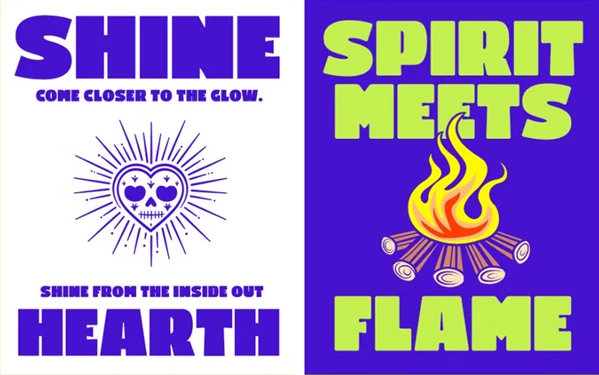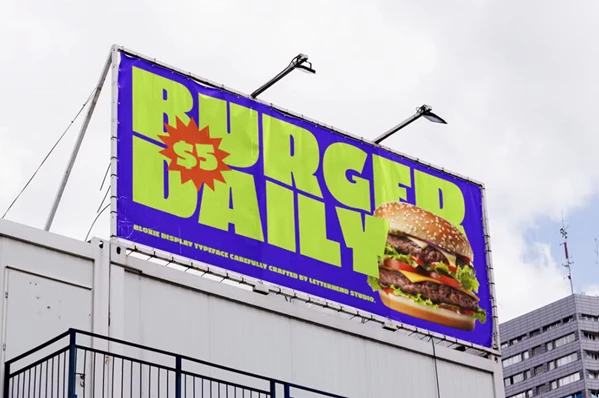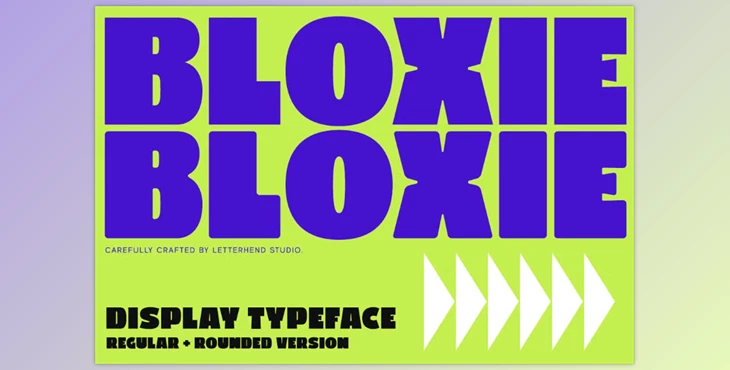
Bloxie Bold Display Font:
The Bloxie Bold Display font is an eye-catching typeface that is guaranteed to attract attention. It was created for use in display settings. Regular and Rounded styles are available. The font contains bold, thick, geometric letters that can easily be seen and are perfect for use on posters, logos, headlines, and many more. For impactful and striking impressions, use the vented Regular style; for a more playful look, go for the Rounded style so the font can be used for versatile branding and design projects.
Some great features of Bloxie Bold Display Font:
- Letters are offered in Uppercase & Lowercase
- Numbers and Punctuation
- Alternates and Ligatures are included
"Bloxie Bold Display Font" Samples: